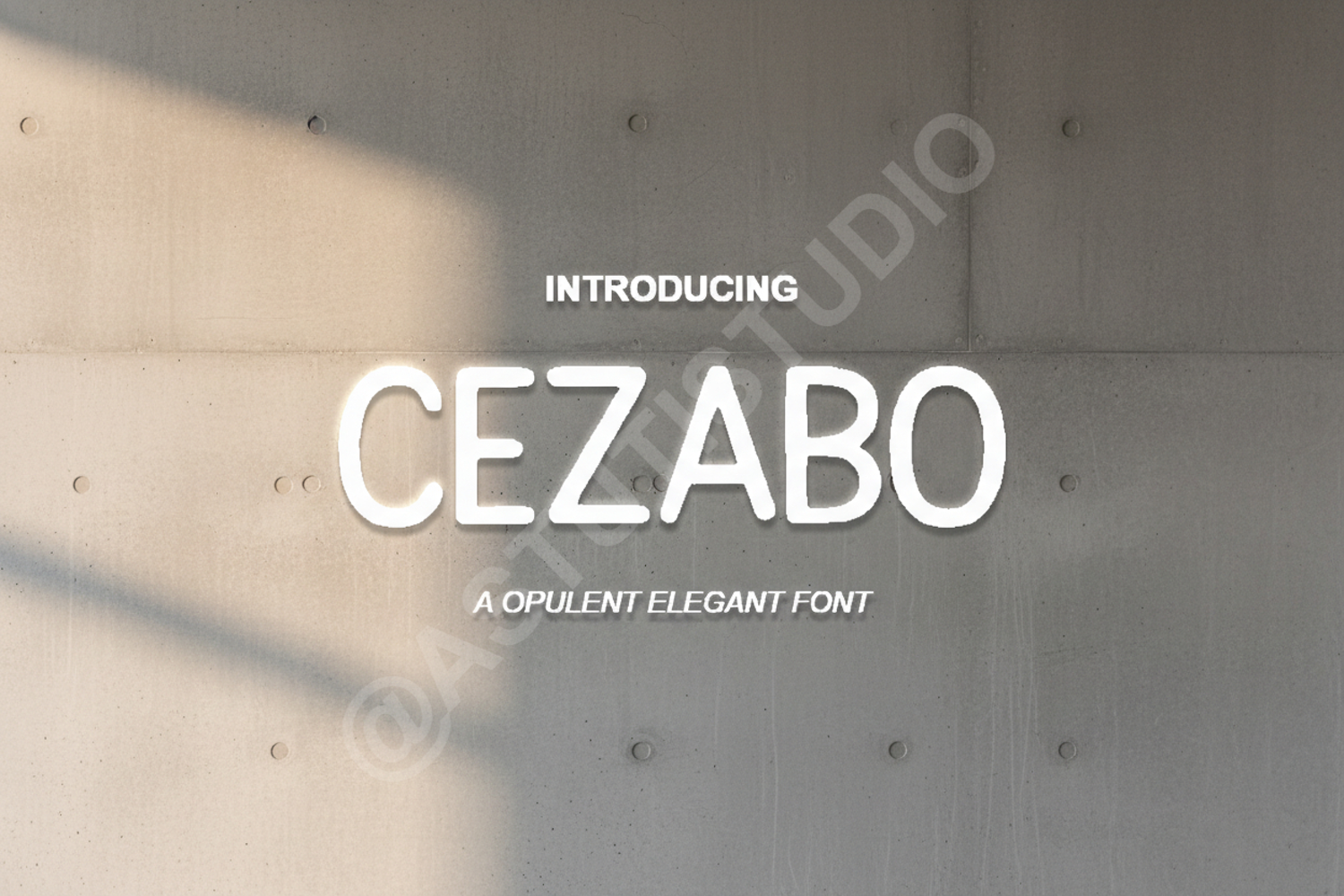
Cezabo - Modern Elegant Serif Typeface
Cezabo
Cezabo is a premium serif typeface designed for those who demand sophistication and versatility in their creative projects. With its clean lines and refined aesthetic, this font effortlessly balances classic elegance with a modern edge. Whether you are working on high-end branding or editorial layouts, Cezabo provides a polished look that stands out in any design environment.
- Standard Ligatures and Alternates
Ideal Use Cases
- Luxury Branding and Visual Identity
- Wedding Invitations and Stationery
- Editorial Design and Magazine Layouts
- Professional Logo Design
- Social Media Graphics and Quotes
- Premium Packaging and Product Labeling
Cezabo is meticulously crafted to ensure high legibility and a seamless workflow for designers. Elevate your design portfolio with this timeless addition.